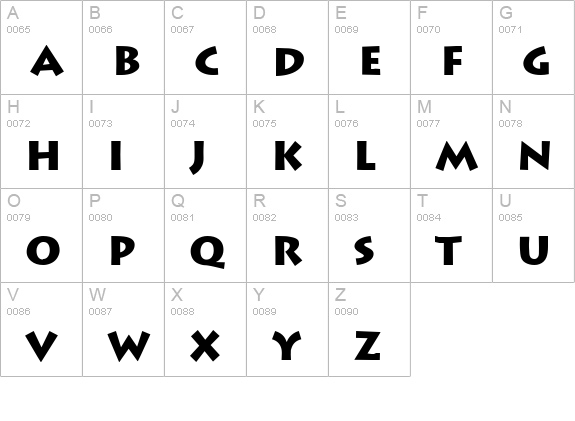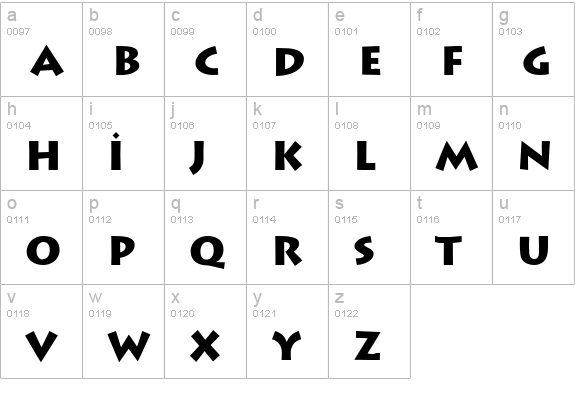
TR Lithograph Bold Font Details
TR Lithograph Bold is a strong, high-contrast variant in the TR typeface family \xE2\x80\x94 well suited to headlines, attention-grabbing titles, and strong calls-to-action.
TR Lithograph Bold is a striking and versatile font that exudes boldness and elegance. Its clean lines and strong presence make it perfect for a variety of design projects, from logos to posters to branding materials. The bold weight of this font commands attention and adds a modern touch to any design. What sets TR Lithograph Bold apart is its timeless appeal and versatility. Whether you're looking to create a sleek and professional look or a bold and eye-catching design, this font has got you covered. Its classic yet contemporary aesthetic makes it a go-to choice for designers looking to make a statement. And the best part? TR Lithograph Bold is available for free download at FontsMarket.com. So go ahead and add this powerful font to your collection today and take your designs to the next level.